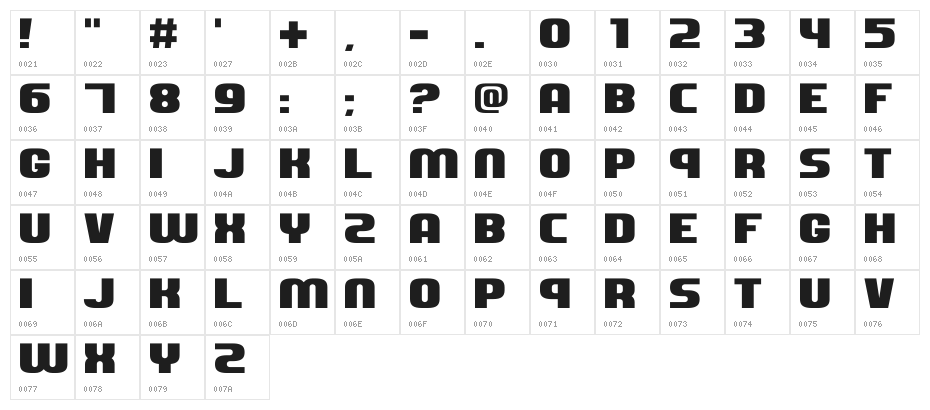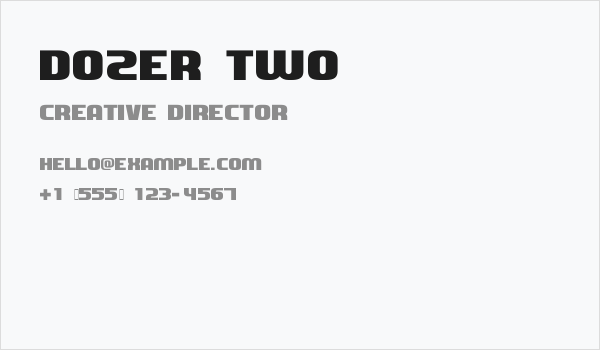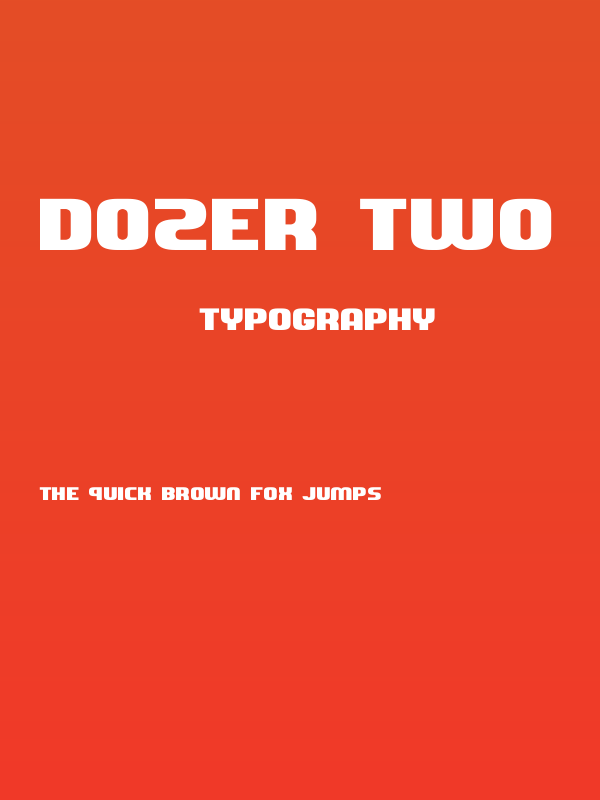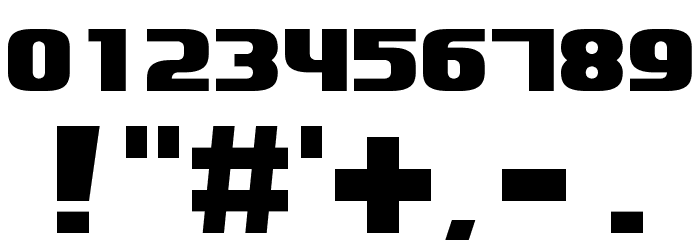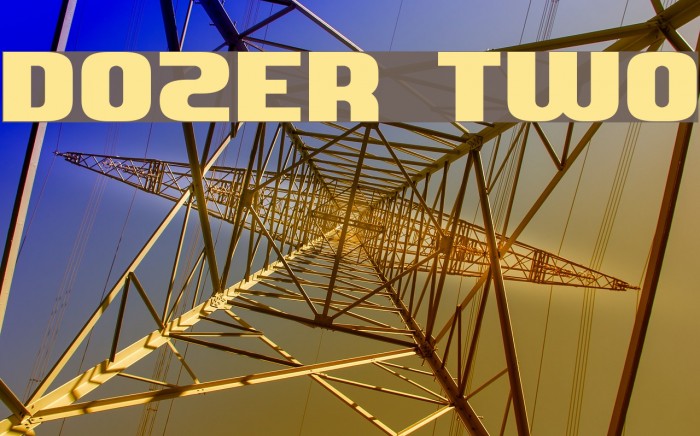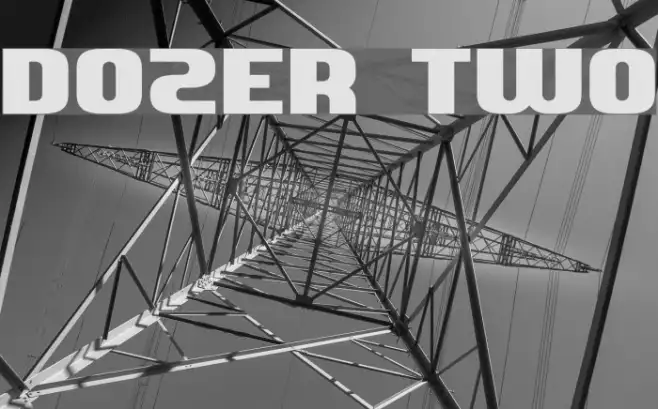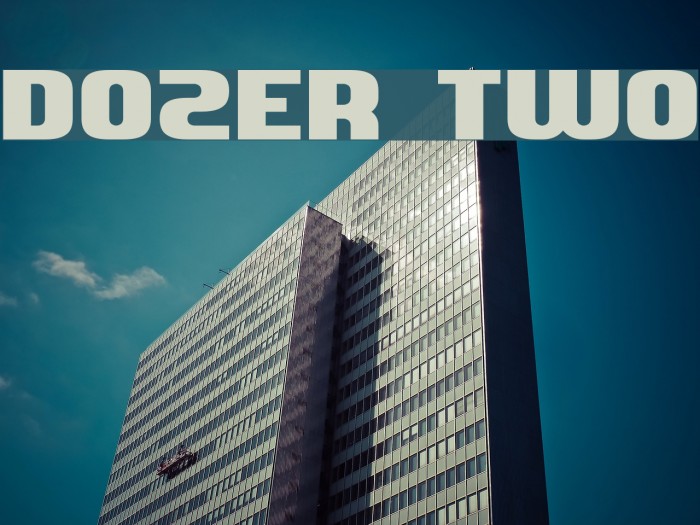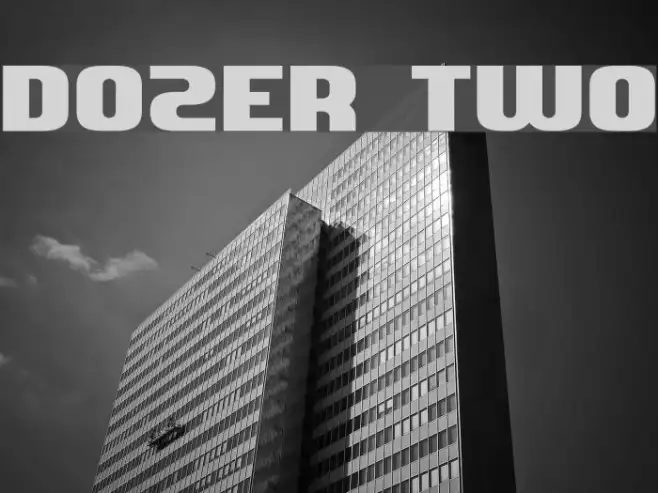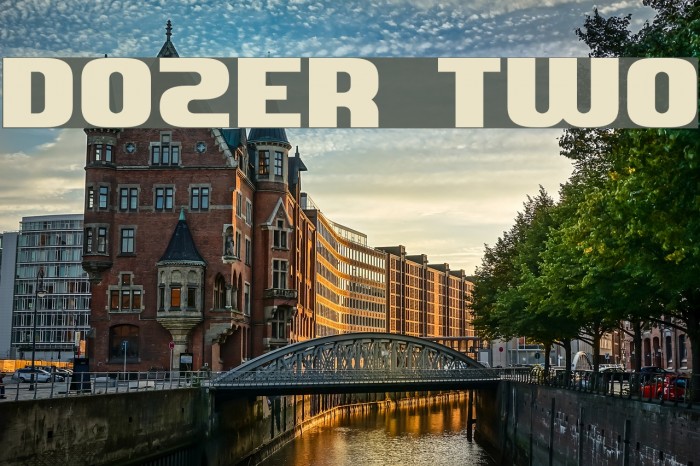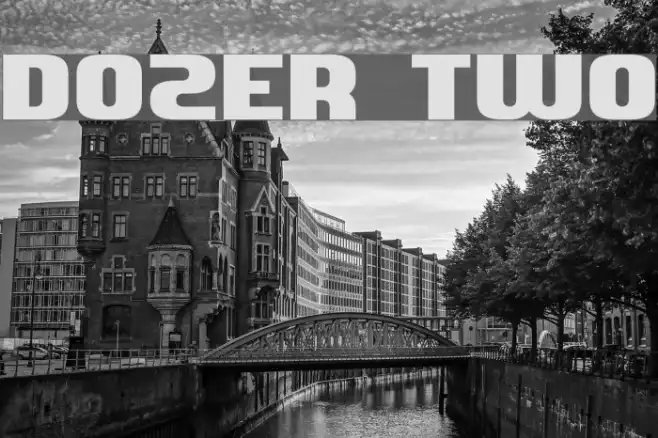
Dozer Two Font
Dozer Two Description
This bold, geometric typeface features strong, block-like characters with a modern and industrial feel. The uppercase letters are uniform in height, with rounded edges that soften the overall appearance. The lowercase letters maintain the same robust style, ensuring consistency across the typeface. Numbers are equally bold and clear, making them highly legible. Special characters are designed to match the boldness and geometric style of the letters and numbers, providing a cohesive look. This typeface is ideal for projects that require a strong visual impact, such as branding, advertising, and signage.
| Proposed Projects | Ideal for branding, advertising, signage, and any project requiring a strong visual impact. |